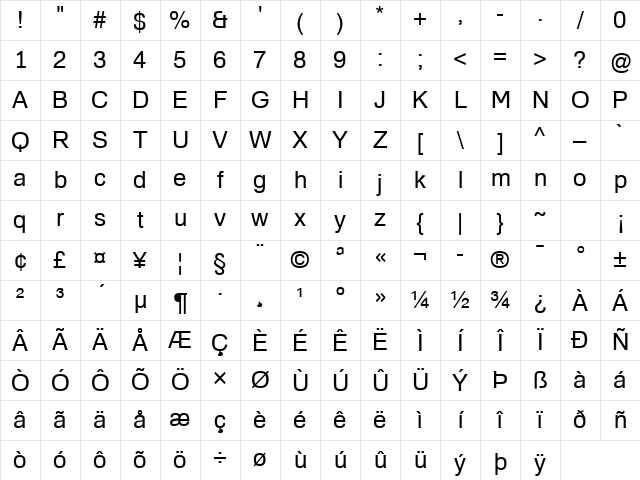
FamiliarPro-Regular &
Foundry: Roger S. Nelsson
Designer: Roger S. Nelsson
Design Context for FamiliarPro-Regular
FamiliarPro-Regular is a composed and adaptable typeface that performs quietly and consistently across a wide range of design contexts.